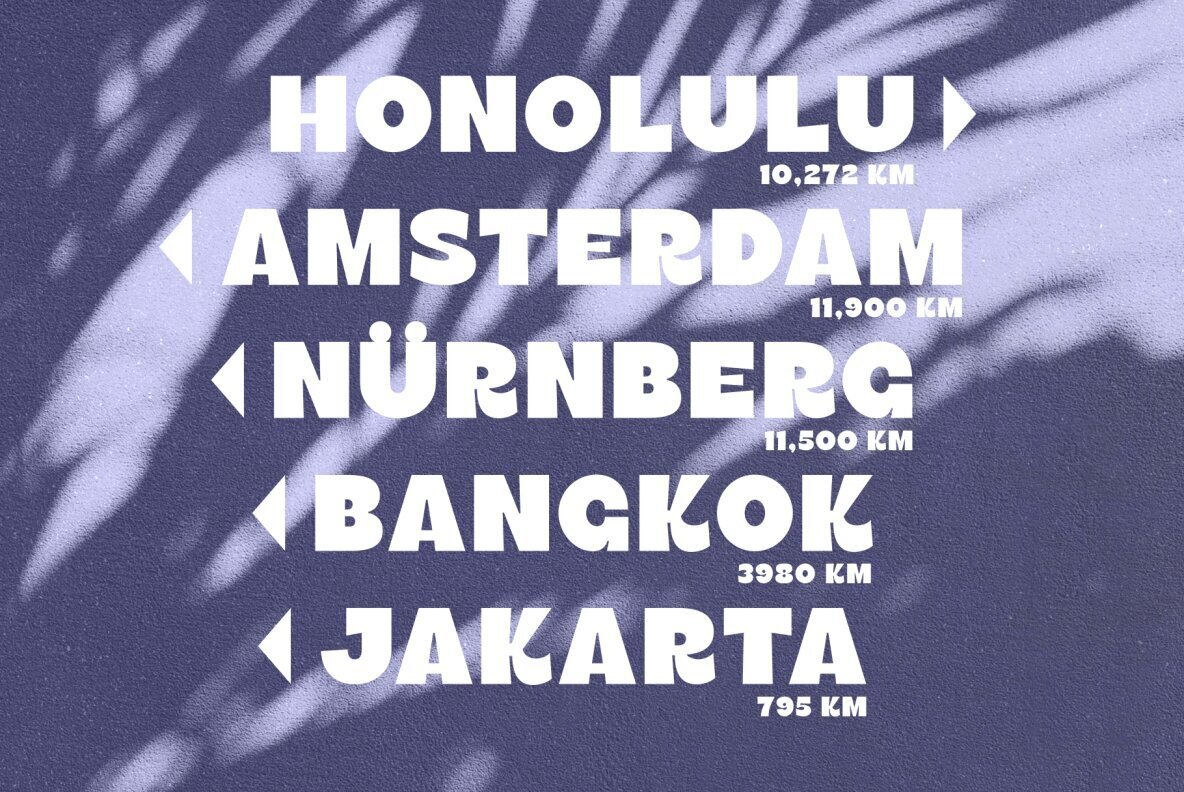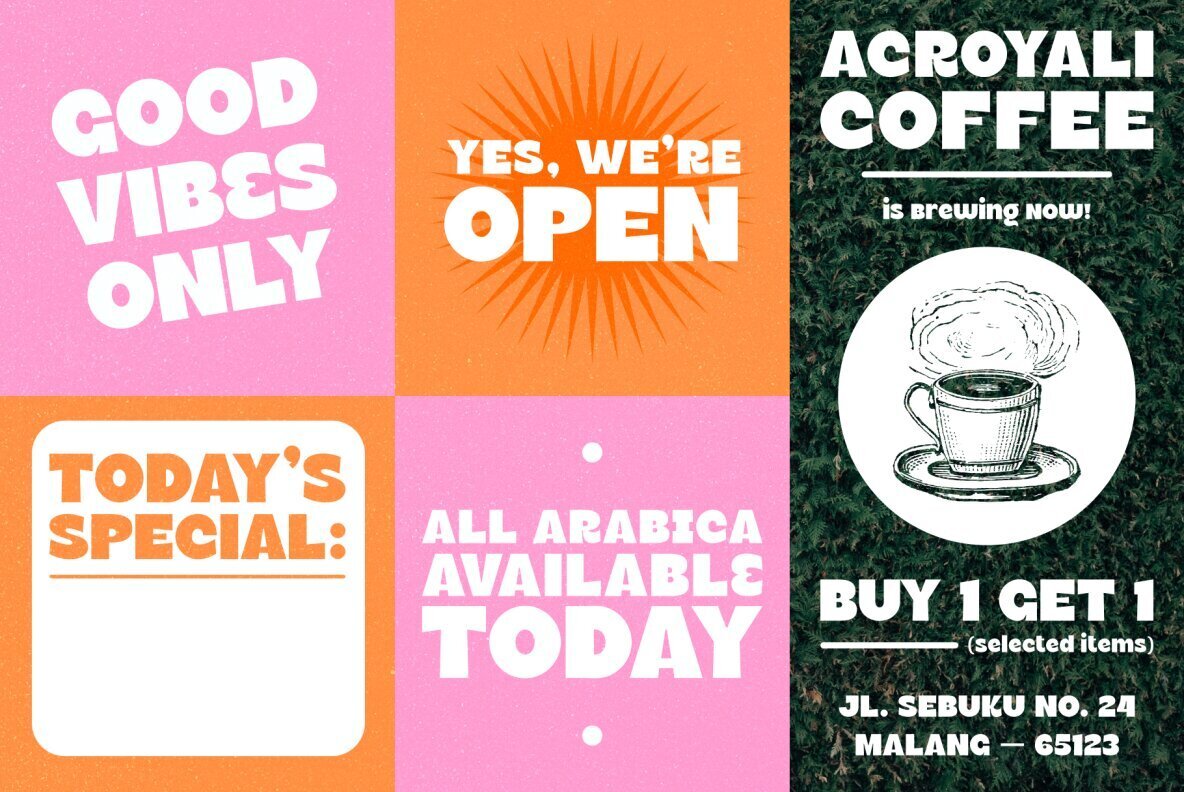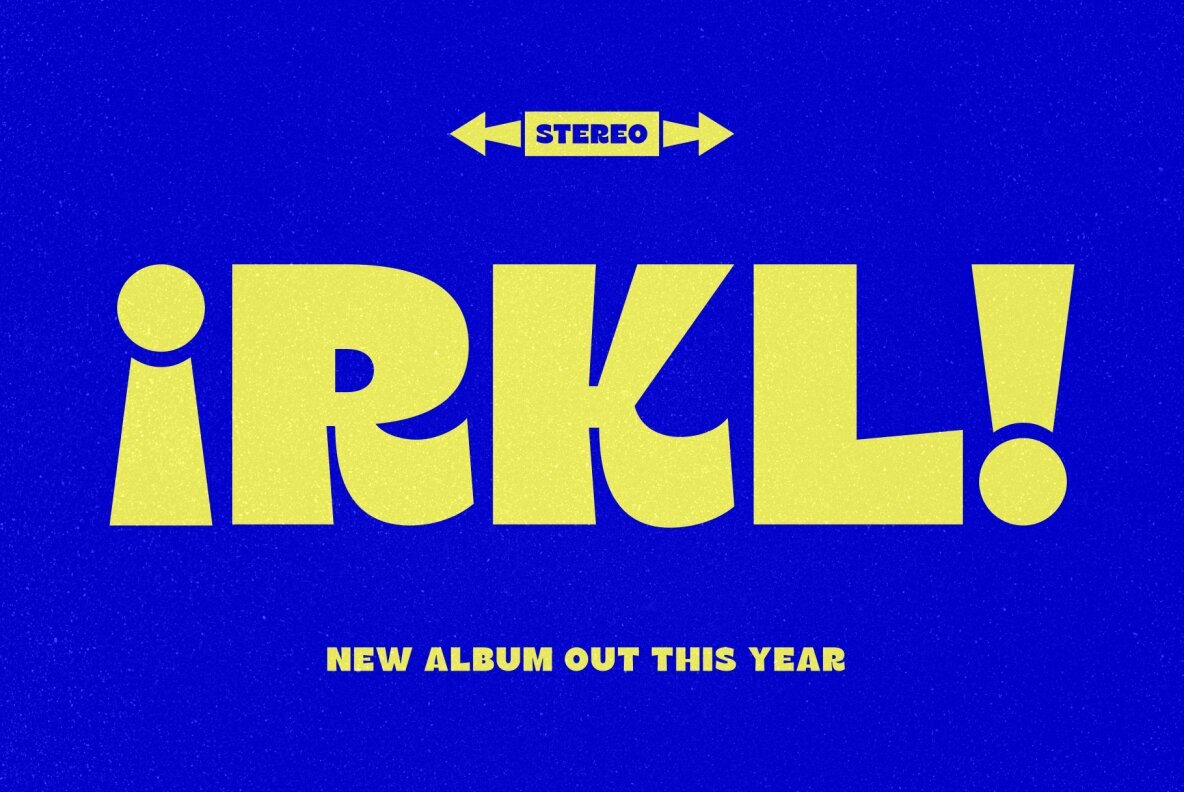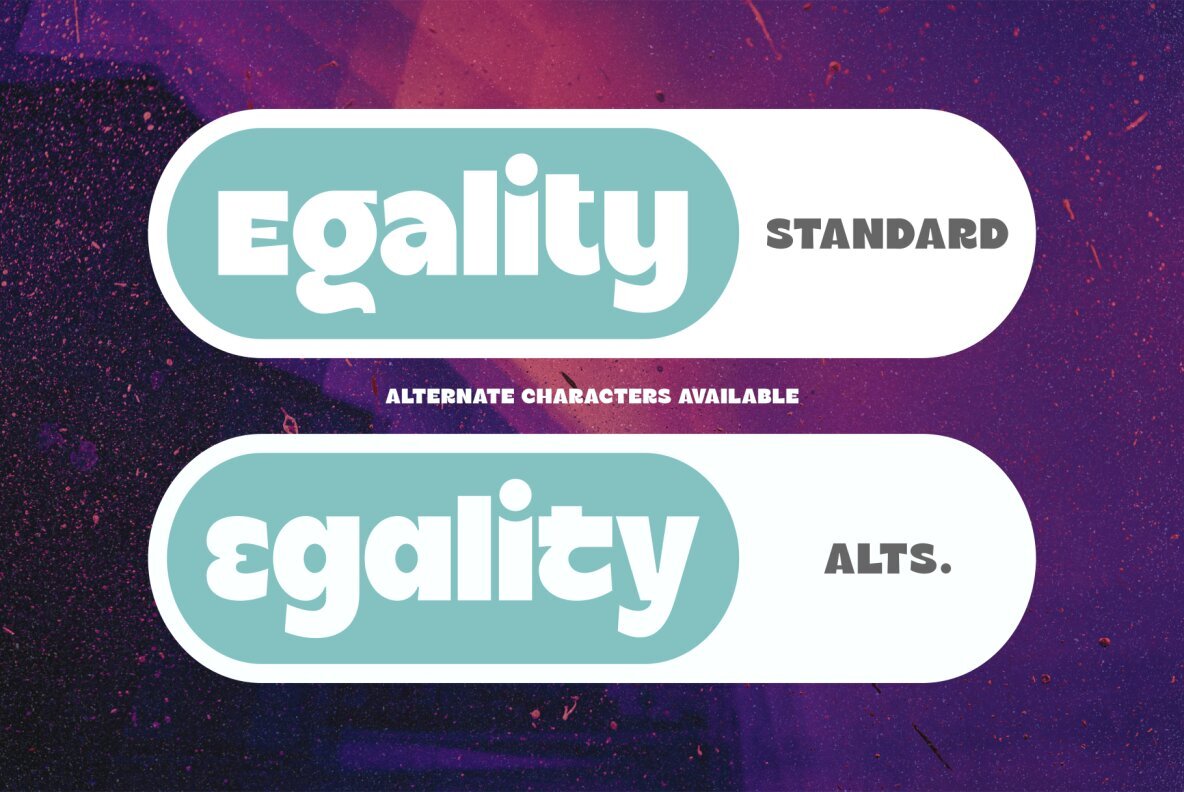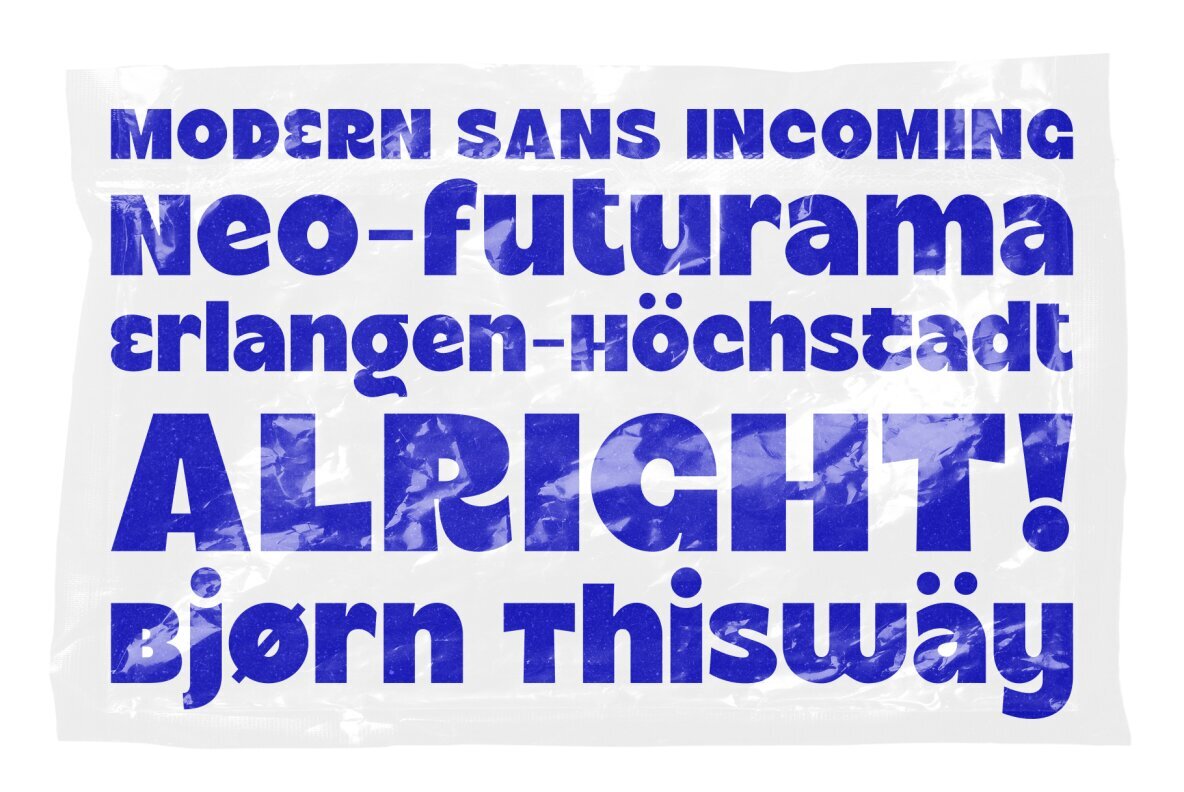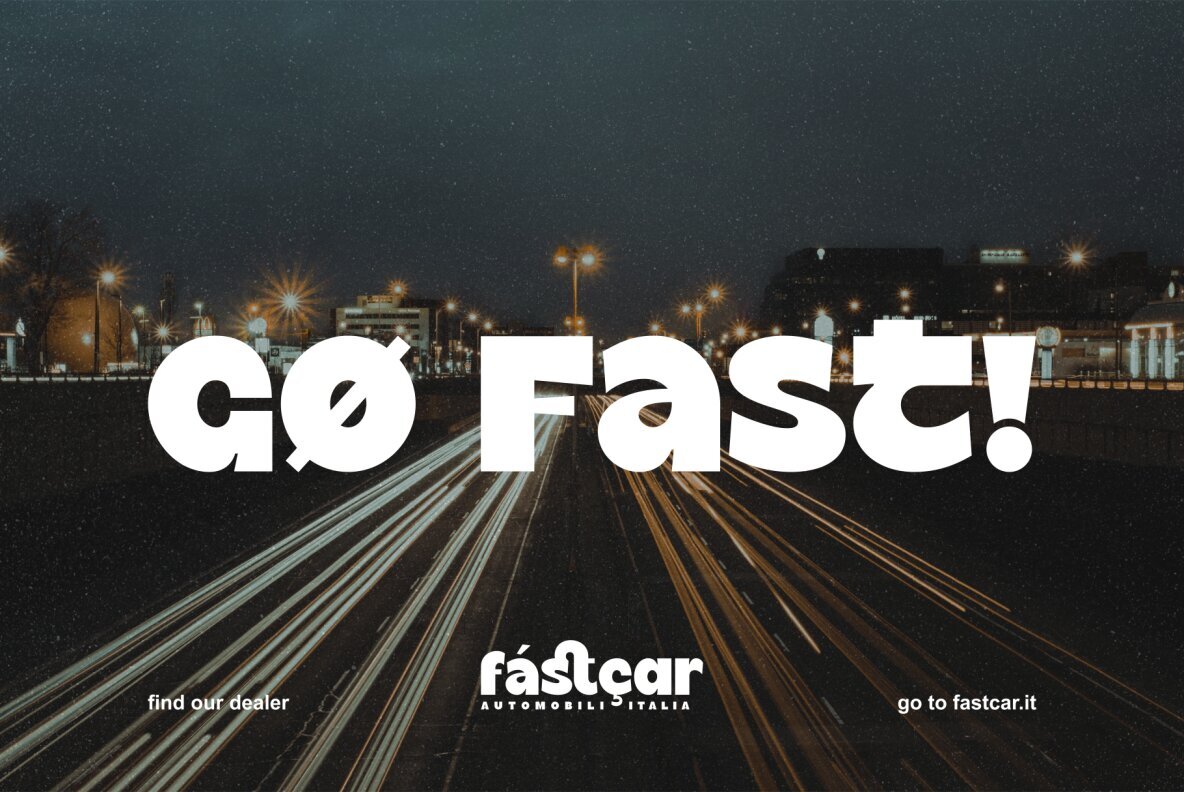
Rackety Font
Rackety Regular
Introducing our latest typeface release: Rackety. A bold, playful and funky display sans serif that are inspired by the classic advertisement letters. Crafted with high attention to details to match with nowadats trendiness. Rackety suits best for any kind of designing themes, such as: quote designs, poster designs, headline, logo/branding, packaging, etc.